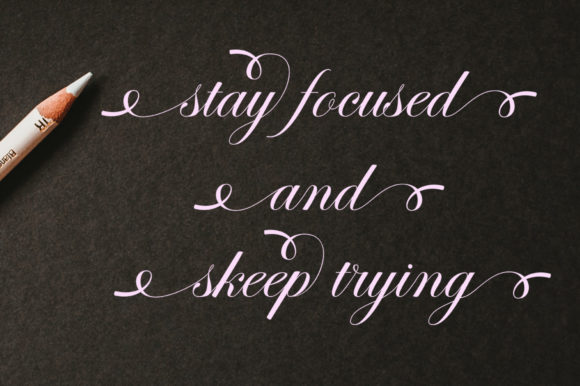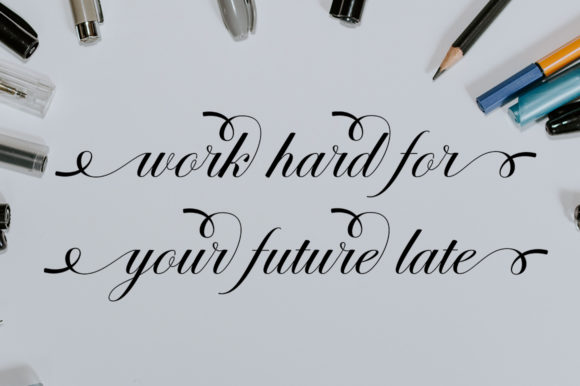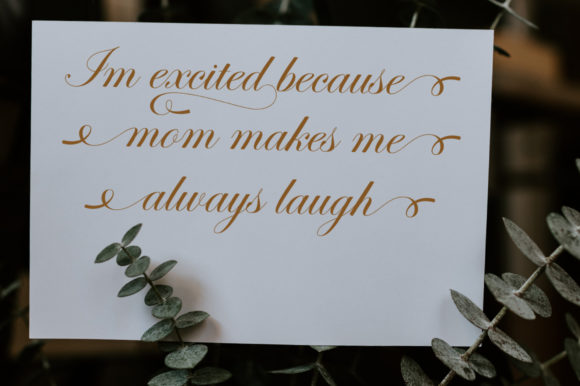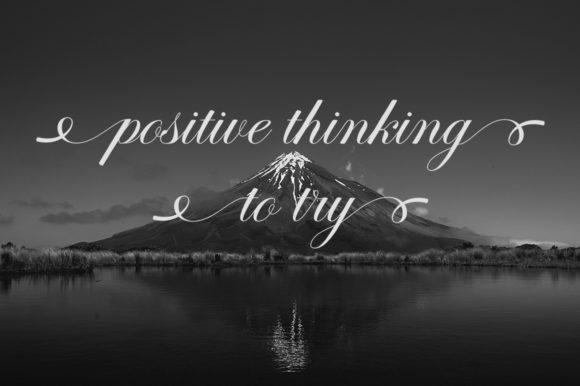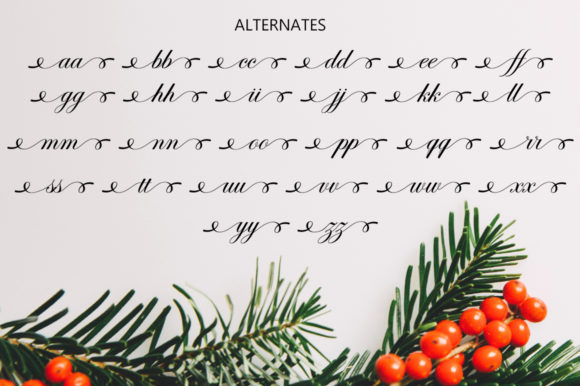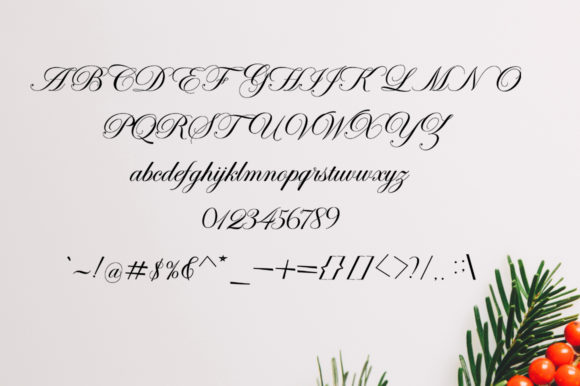
Discover the Elegance of Callista Font: A Perfect Choice for Designers and Crafters
Are you a designer or crafter looking for a font that exudes charm and elegance? Look no further than the Callista Font. This beautiful, handwritten font is perfect for a variety of design projects, from wedding invitations and thank you cards to quotes, greeting cards, logos, and business cards. In this article, we’ll explore the features and benefits of the Callista Font and why it’s a must-have for any designer or crafter.
The Charm and Elegance of Callista Font
Callista Font feels equally charming and elegant, making it the perfect choice for designs that require a personal touch. Its varying baseline, smooth lines, and gorgeous glyphs give it a unique and sophisticated look that’s sure to impress. Whether you’re designing a wedding invitation or a business card, Callista Font is sure to add a touch of elegance and sophistication.
Features of Callista Font
So, what makes Callista Font so special? Here are just a few of its key features:
- PUA Encoded: Callista Font is PUA encoded, which means you can access all of the glyphs and swashes with ease. This makes it easy to customize your designs and add your own personal touch.
- Varying Baseline: The font features a varying baseline, which gives it a natural, handwritten look that’s perfect for designs that require a personal touch.
- Smooth Lines: The smooth lines of Callista Font give it a sophisticated and elegant look that’s sure to impress.
- Gorgeous Glyphs: The font features a range of gorgeous glyphs, including stunning alternates that allow you to customize your designs.
Uses for Callista Font
Callista Font is a versatile font that can be used for a wide range of design projects, including:
- Wedding Invitations: Add a touch of elegance and sophistication to your wedding invitations with Callista Font.
- Thank You Cards: Use Callista Font to create beautiful, personalized thank you cards for any occasion.
- Quotes: Add a touch of elegance to your quotes with Callista Font.
- Greeting Cards: Use Callista Font to create beautiful, personalized greeting cards for any occasion.
- Logos: Add a touch of sophistication to your logos with Callista Font.
- Business Cards: Use Callista Font to create beautiful, professional business cards that make a lasting impression.
Why Choose Callista Font?
So, why choose Callista Font for your design projects? Here are just a few reasons:
- Elegant and Charming: Callista Font is both elegant and charming, making it perfect for designs that require a personal touch.
- Versatile: The font is versatile and can be used for a wide range of design projects.
- Easy to Use: Callista Font is PUA encoded, making it easy to access all of the glyphs and swashes.
- High-Quality: The font is high-quality and features smooth lines, gorgeous glyphs, and stunning alternates.
In conclusion, Callista Font is a beautiful, elegant font that’s perfect for designers and crafters. Its charming and sophisticated look makes it perfect for a wide range of design projects, from wedding invitations and thank you cards to quotes, greeting cards, logos, and business cards. With its PUA encoding, varying baseline, smooth lines, gorgeous glyphs, and stunning alternates, Callista Font is a must-have for any designer or crafter looking to add a touch of elegance and sophistication to their designs.